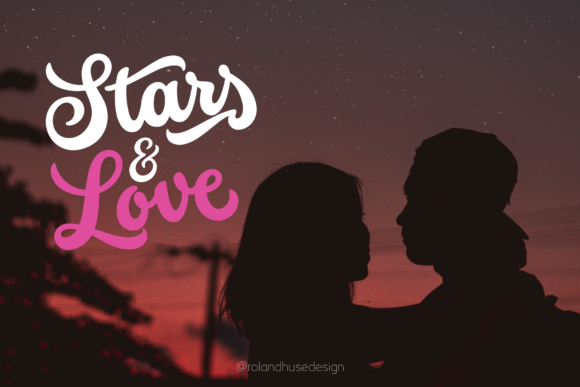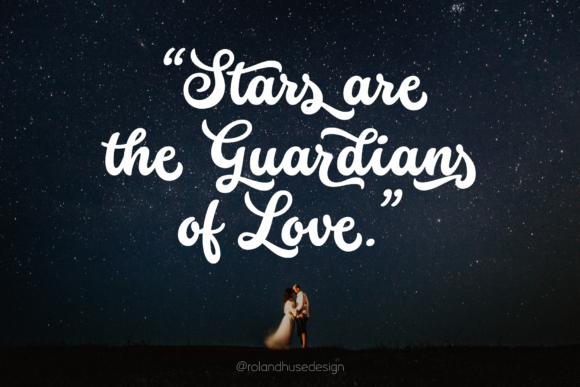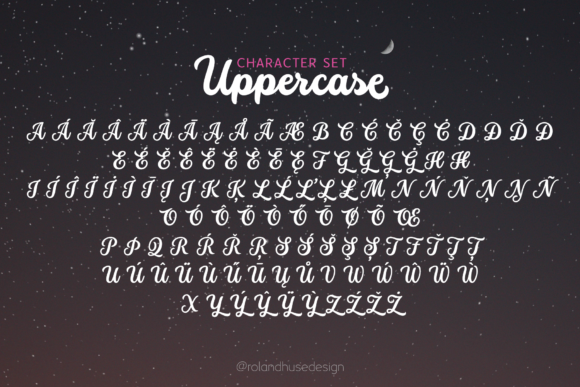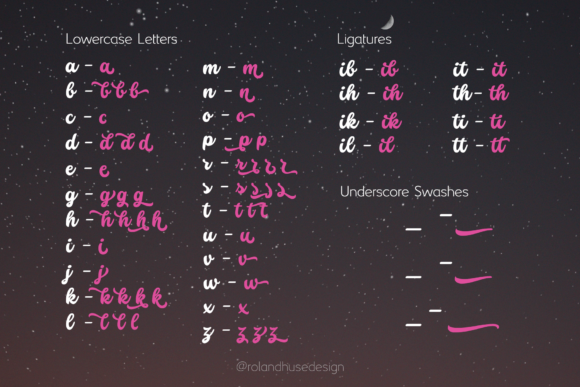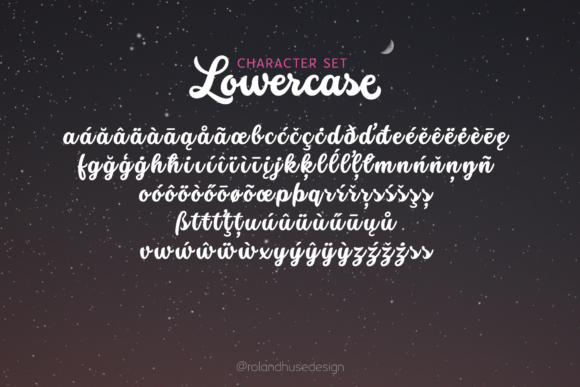
Stars & Love Font
About Stars & Love Font
Stars & Love is a bold, cursive brush calligraphy font, influenced by retro calligraphy. It features a friendly rounded look and flourished elegance. Get inspired by its stylistic alternates, contextual alternates, standard ligatures, and terminal forms.